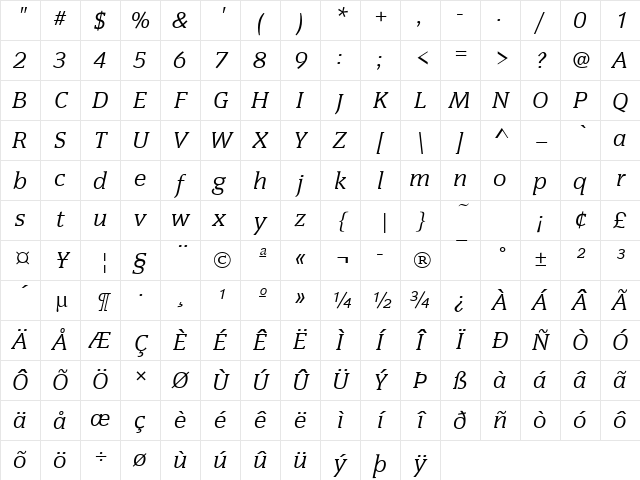
CongressT is a composed and adaptable typeface that performs quietly and consistently across a wide range of design contexts. The slanted form adds forward momentum and visual energy.
Pro Tip: Use CongressT for emphasis, pull quotes, and subheadings where its slanted energy can add rhythm to the layout.